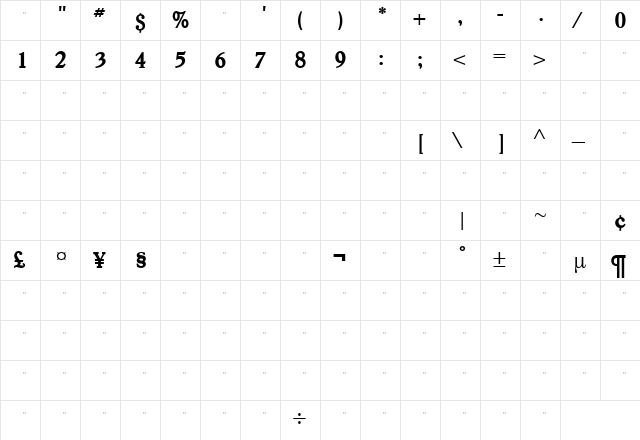
GoudY38ExtraBoldTab Medium Font Preview
GoudY38ExtraBoldTab Medium
Design Context for GoudY38ExtraBoldTab Typeface
GoudY38ExtraBoldTab takes a measured approach to typography — its balanced proportions and neutral character make it a reliable workhorse for both digital and print work. Its bold stroke weight gives it real presence on the page.